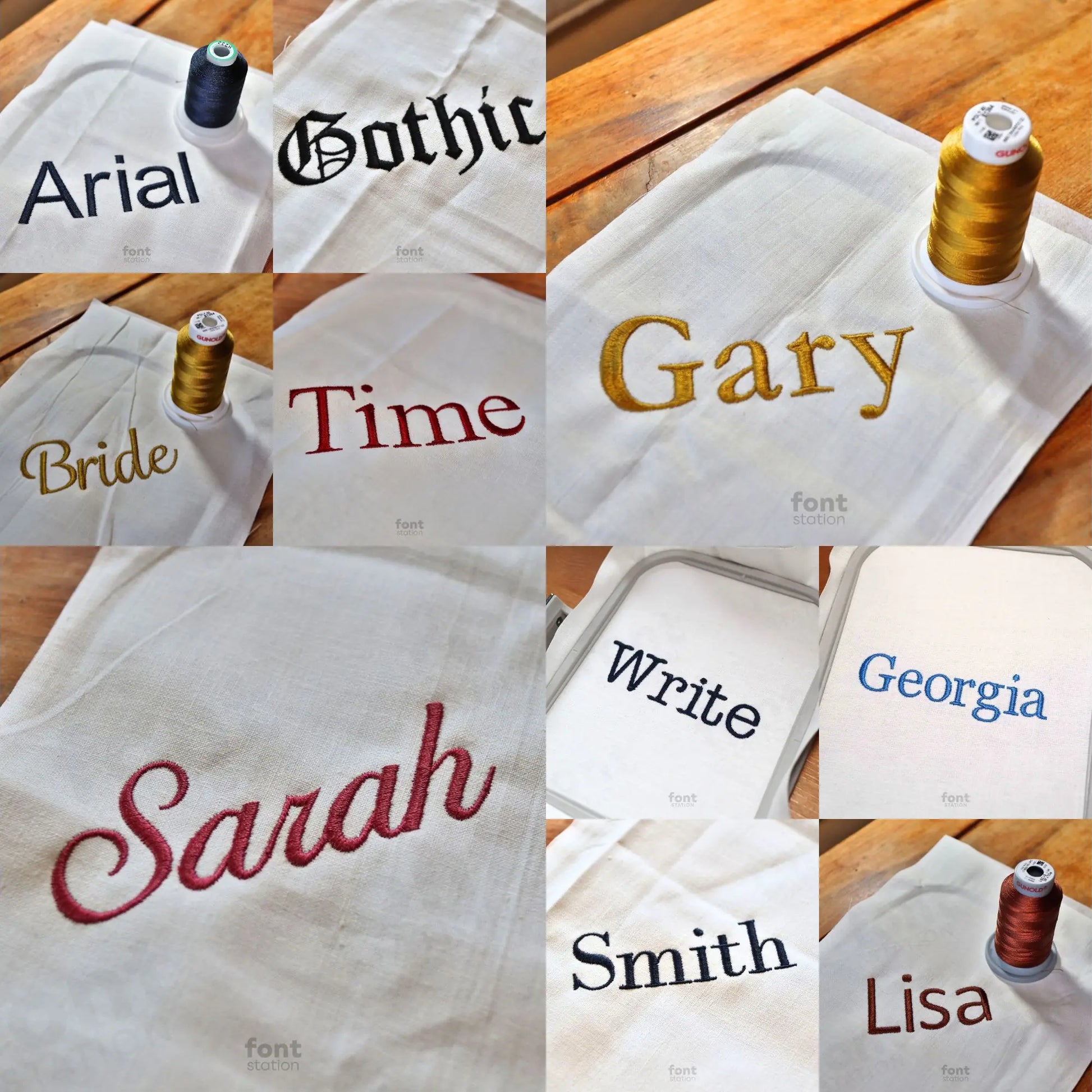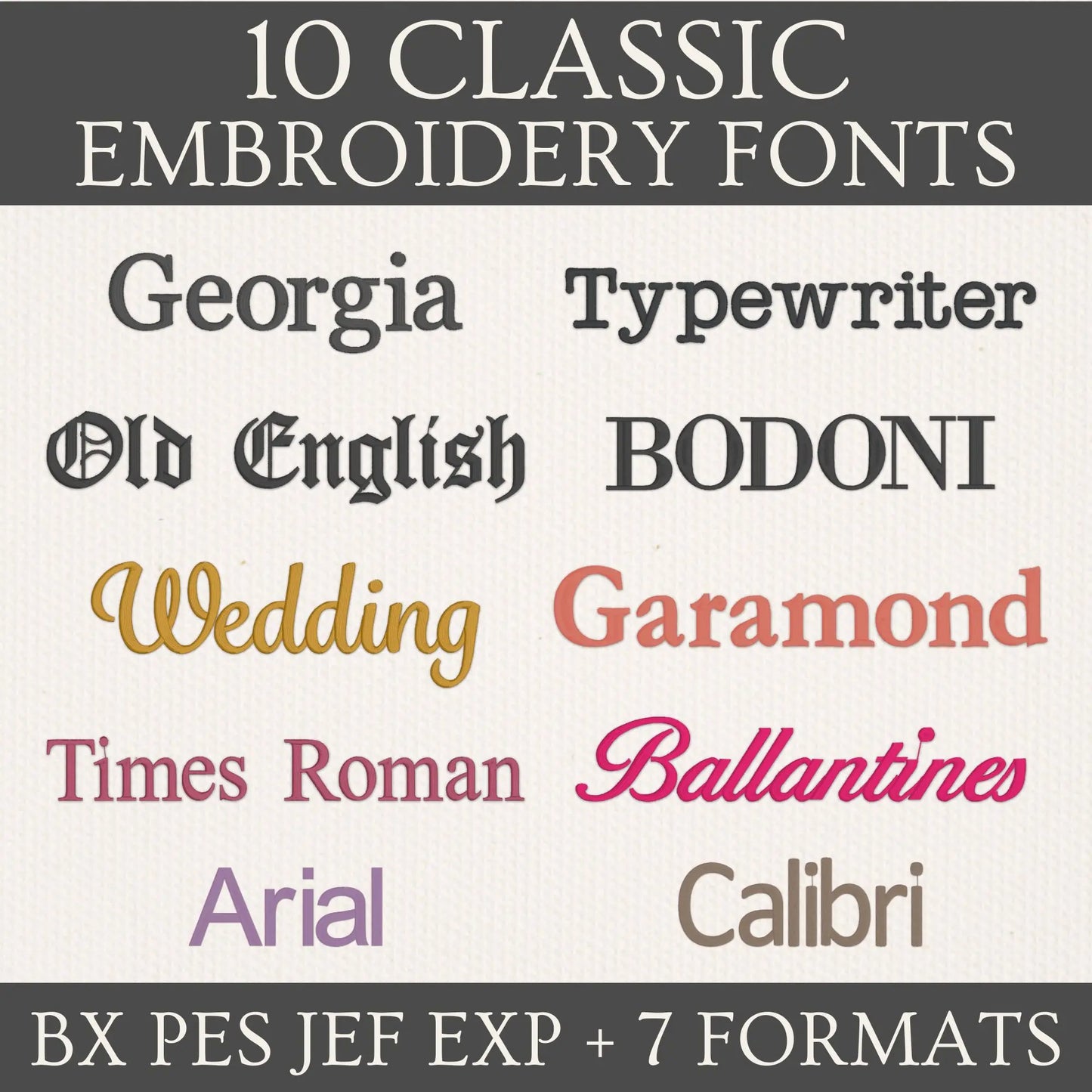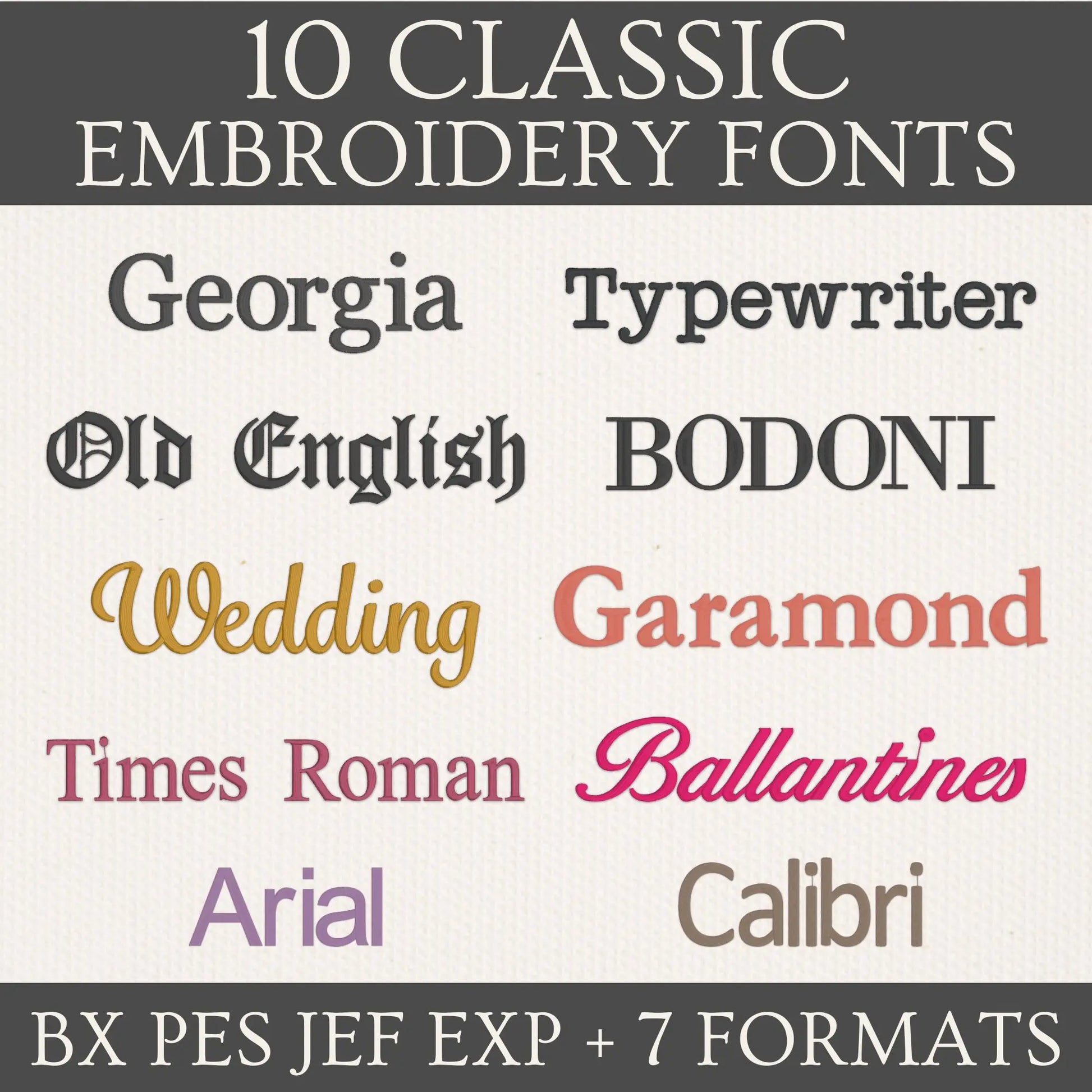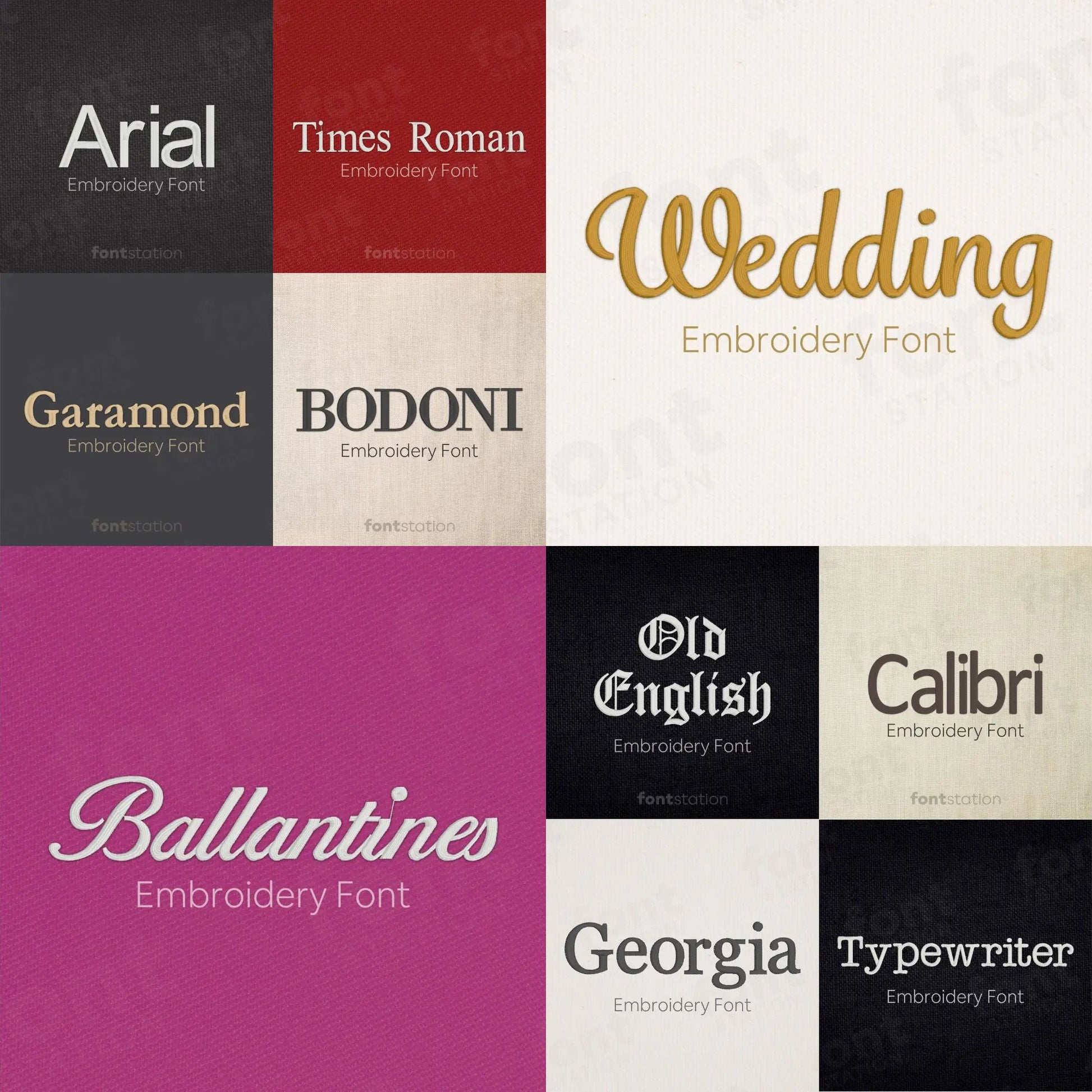
Classic Embroidery Fonts Bundle
Introducing our Classic Embroidery Fonts Bundle - a timeless alphabet collection to stitch elegant letters and elevate every project on your embroidery machine. Perfect for refined designs and heirloom-quality creations.
Classic Embroidery Fonts Bundle - timeless alphabets for elegant embroidery designs
Add timeless beauty to your embroidery projects with our Classic Embroidery Fonts Bundle. This curated collection includes 10 elegant embroidery fonts that bring sophistication to any design. Featuring both satin and fill stitch options, each embroidery alphabet is professionally digitized to deliver crisp, clean letters on any embroidery machine. Perfect for monograms, wedding gifts, heirloom projects, and high-end branding, this bundle brings classic charm to every stitch.
• Professional Quality: Each character has been expertly digitized to ensure clean, crisp stitching and excellent embroidery results.
• Versatility: Our font is suitable for a wide range of embroidery projects, from apparel and accessories to home decor and gifts.